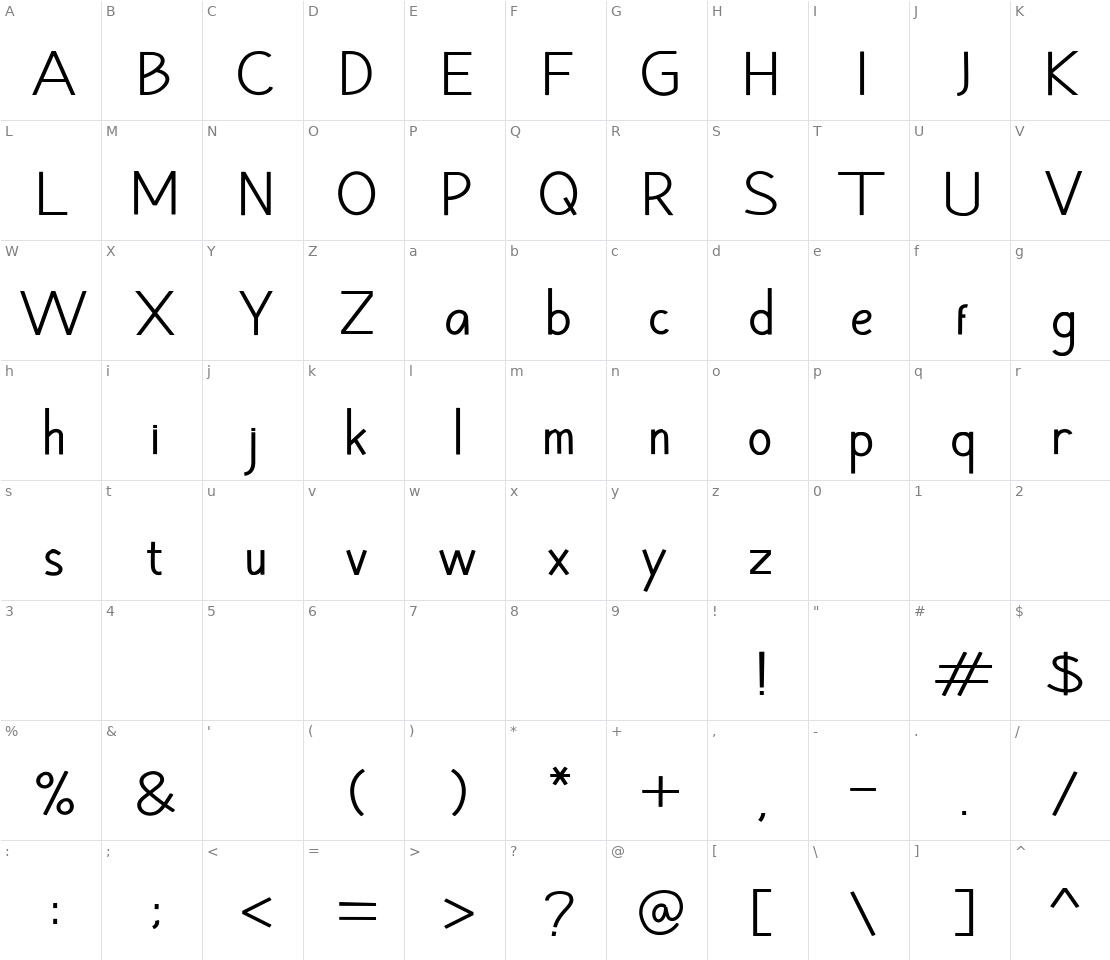
Hansville
by Naharstd
Hansville is a light humanist sans-serif from Naharstd with thin, airy strokes and a warm, approachable structure. The letterforms balance elegance with readability, keeping things clean and modern without feeling sterile. Its friendly proportions make it a strong choice for headlines and branding where you want something refined but not distant.